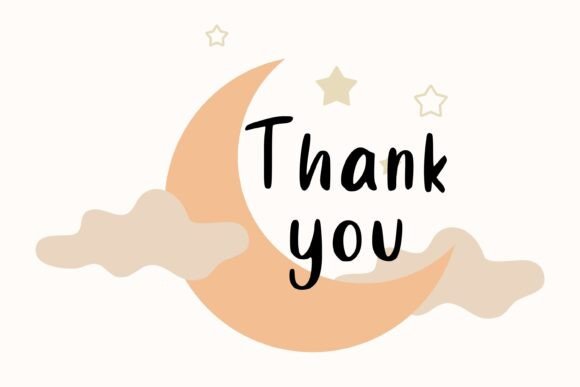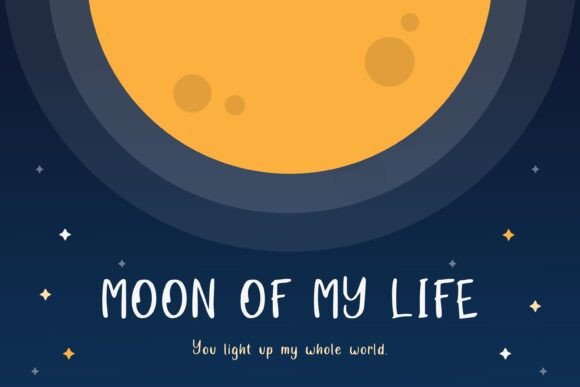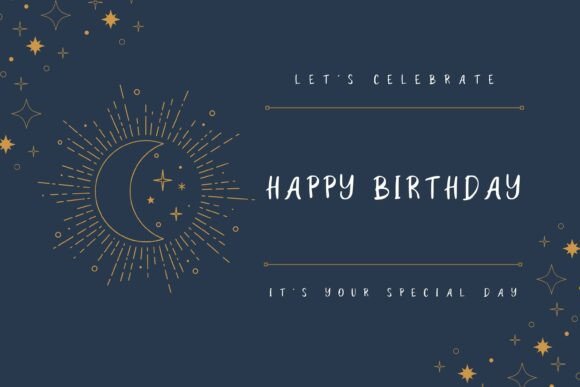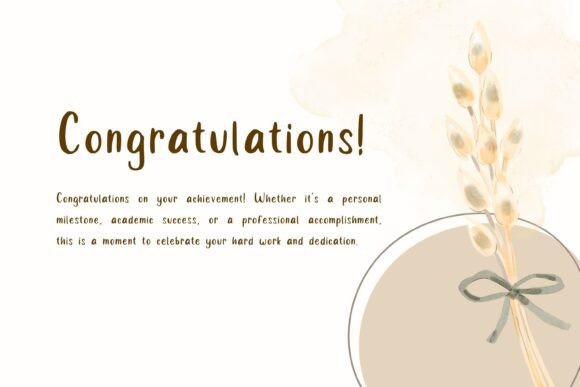
Introduction to Moon Whisper Font
Discover the enchanting appeal of Moon Whisper, a delightful script typeface that mimics the allure of a sublime handwritten style.
It charms with its fluid curves and ebullient aesthetics that seem to stir up an aura of whimsy and magic Ideal for creative endeavors, inviting notecards, unique brand marks, or snug designs craving a sprinkle of warmth and enchantment, Moon Whisper sets the perfect stage for imaginations to dance and wander.
Key Features of Moon Whisper Font